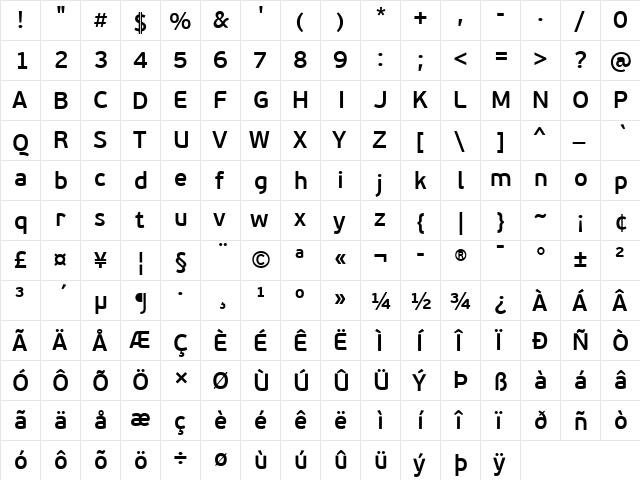
PF BeauSans Pro SemiBold
SemiBold · Parachute蠗orldwide Panos Vassiliou ·
DesignerPanos Vassiliou
Design Context for PF BeauSans Pro Typeface
PF BeauSans Pro takes a measured approach to typography — its balanced proportions and neutral character make it a reliable workhorse for both digital and print work. Its bold stroke weight gives it real presence on the page.